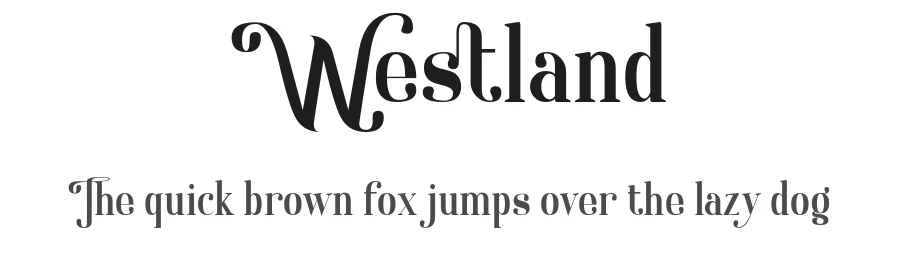
About Quirky Bay Font
Quirky Bay is a classy serif font. It features cute and extended characters that will look particularly adept when used in logos, branding, packaging design, and much more. Get inspired by its authentic feel and use it to create gorgeous wedding invitations, beautiful stationary art, eye-catching social media posts, and cute greeting cards.
| Designer | Type factory |
Quirky Bay Font is a decorative font that shines as a display or heading face. Pair it with a clean sans-serif or serif font for body text β the contrast creates a clear hierarchy while the two styles stay balanced and easy to read.